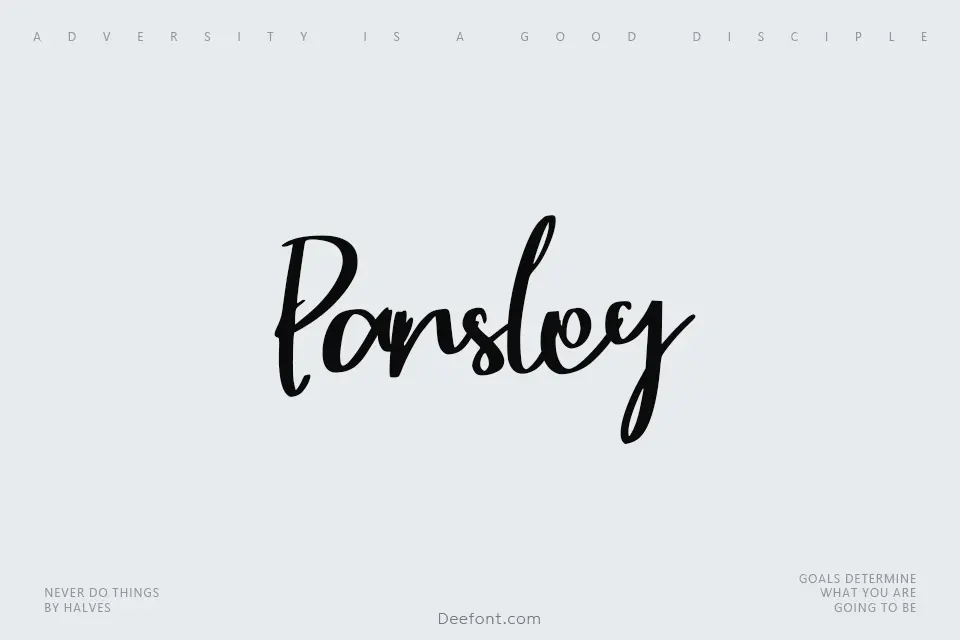
Parsley Font
Parsley Font a Fancy & Unique Script Font!!
Parsley is a Fancy & Unique Script Font for your Design that is absolutely great for your next creative project such as logos, printed quotes, invitations, cards, product packaging, headers, Logotype, Letterhead, Poster, Apparel Design, Label, and etc.
This Versatile Font includes also support a Multilingual Characters. Making this Font a Swiss Army knife in your Font Library. It’s extremely fun to use as each word can be transformed to your liking.